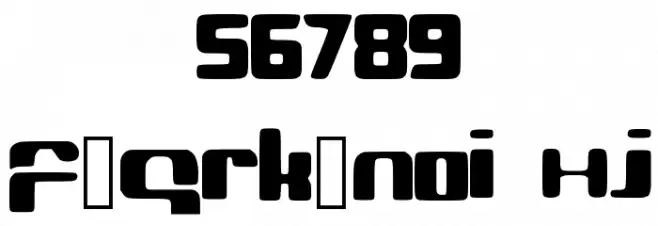
Ramedio Font
Ramedio Description
This font features a bold, geometric style with rounded edges and a strong presence. The characters are uniformly thick, providing a consistent and cohesive look. The design is modern and slightly futuristic, with a playful yet structured appearance. The letters are wide and spacious, offering excellent readability while maintaining a unique aesthetic. The numbers and special characters follow the same design principles, ensuring uniformity across all elements. This font is ideal for projects that require a bold statement and a contemporary feel.
A bold, geometric font with rounded edges and a modern, futuristic style from Uncategorized fonts.
- Proposed Projects: Ideal for branding, posters, headlines, and digital media that require a strong, modern aesthetic.